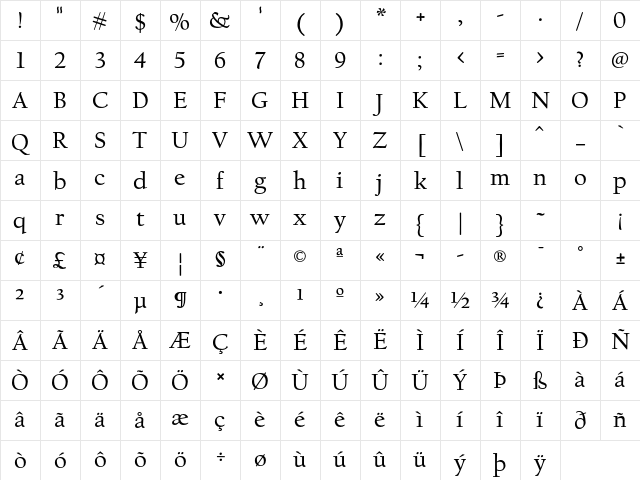
MP FBCalifornianText Roman
Designer: The Font Bureau, Inc.
Design Context for MP FBCalifornianText
MP FBCalifornianText is a composed and adaptable typeface that performs quietly and consistently across a wide range of design contexts.